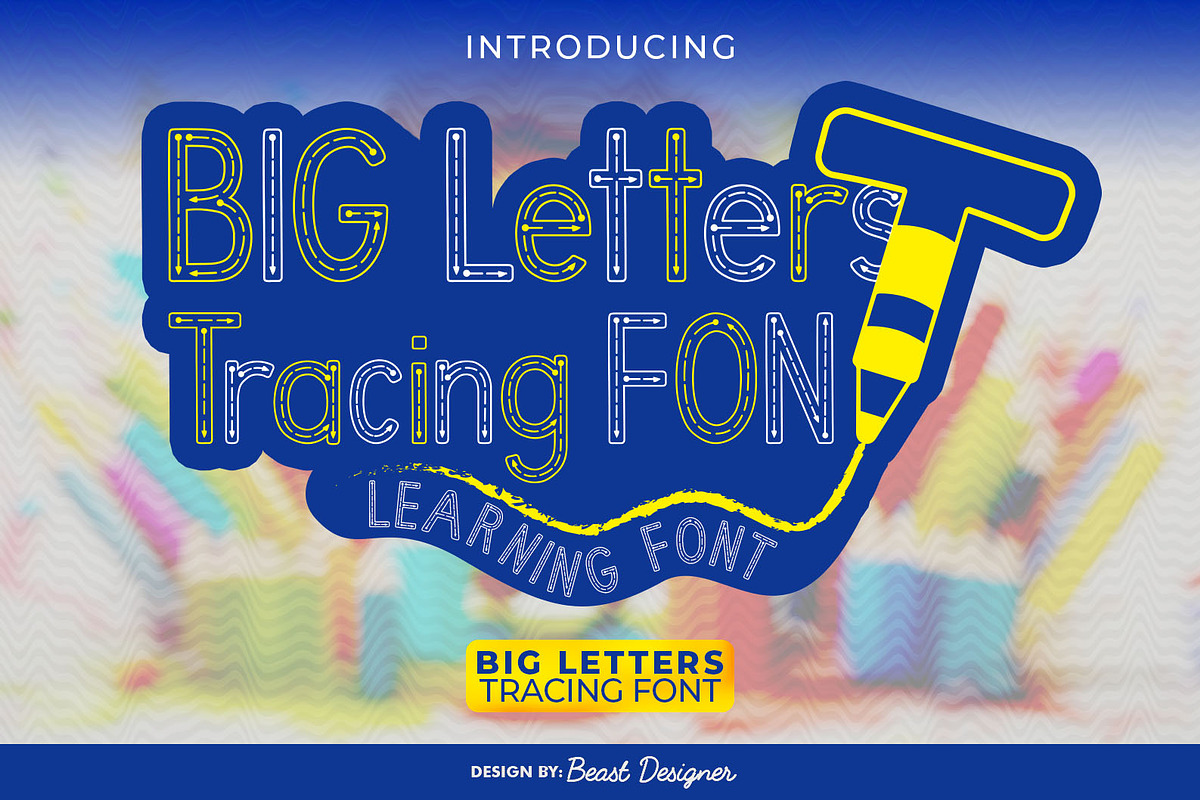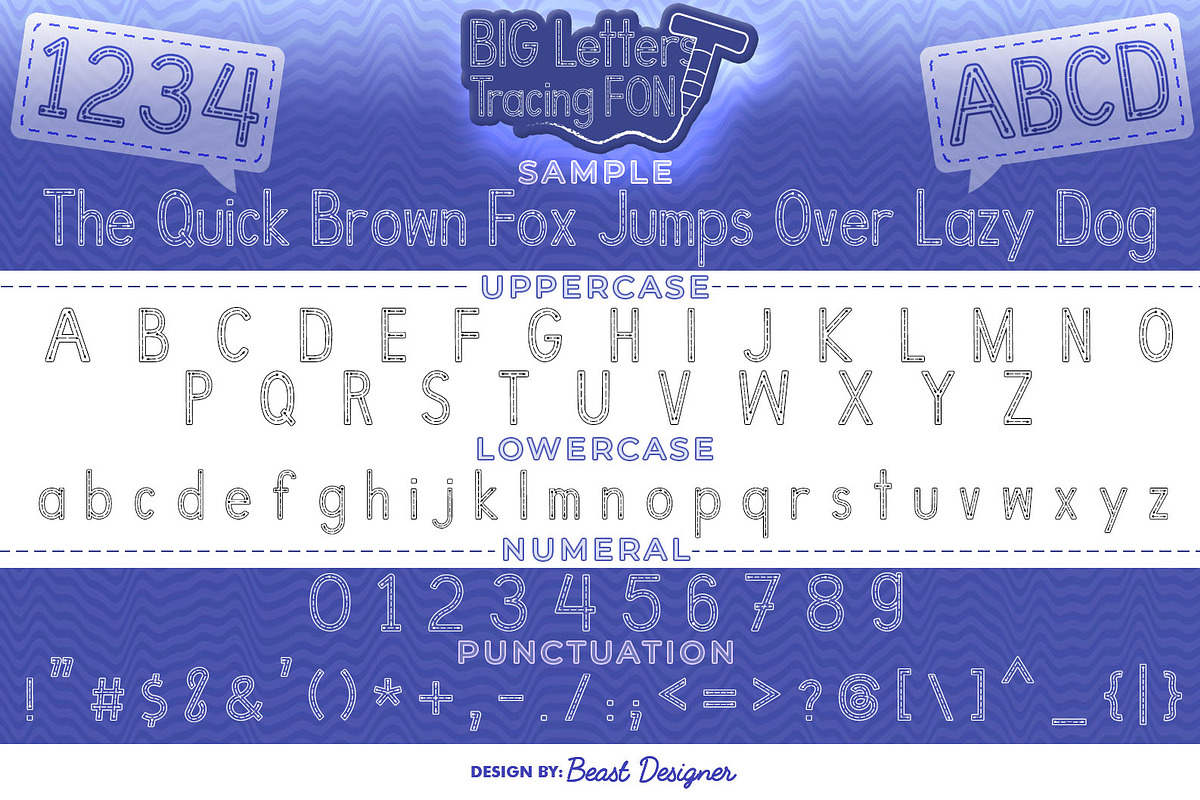
Big Letters Tracing
The Big Letters Tracing Font is specifically designed for preschoolers and early learners. It's a clear sans-serif typeface with the added benefit of dotted tracing guides for each letter. These guides make it easy for young children to practice proper letter formation. The font features consistent shapes for all letters, ensuring clarity and helping kids recognize patterns. Ample spacing between letters prevents crowding, making it easier for little eyes to distinguish individual characters. With its playful appearance, this font aims to make learning handwriting fun and engaging for preschoolers.